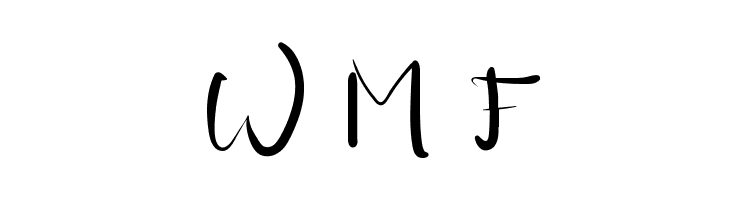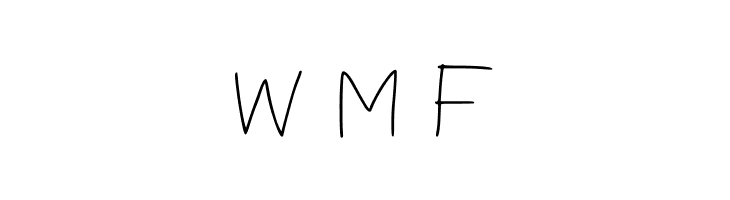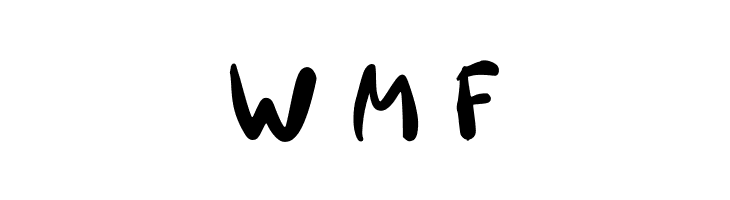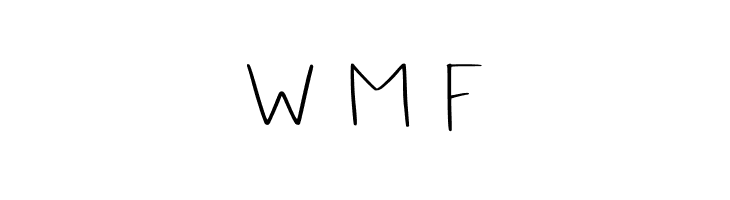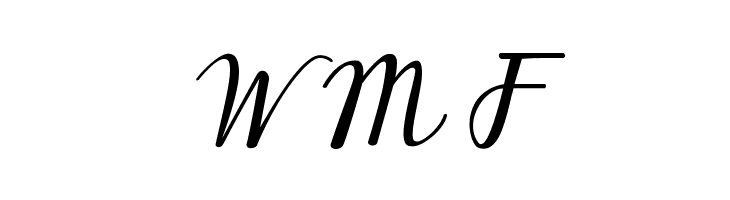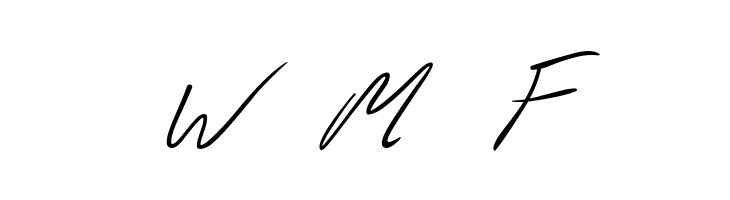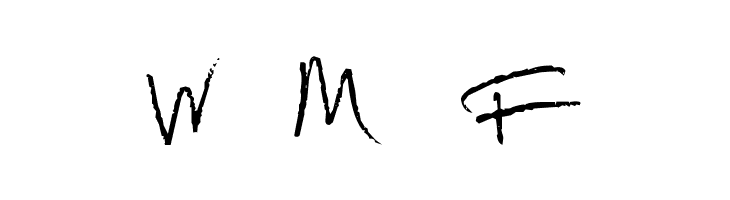
A hand-drawn, sketch-style font with textured outlines.
A playful, casual handwritten font with smooth, flowing lines.
A casual, handwritten font with fluid strokes and a personal touch.
A playful, cursive handwriting font with a smooth, flowing style.
A playful handwritten font with dynamic strokes and a lively style.
A playful and casual handwritten font with a whimsical charm.
A playful, casual handwritten font with smooth, rounded letterforms.
A casual, handwritten font with a natural and personal touch.
A casual, handwritten font with smooth, fluid strokes and a personal touch.
A bold, playful handwritten font with a casual, artistic style.
A playful, casual handwritten font with fluid strokes and a lively feel.
A playful, casual handwritten font with smooth, flowing lines and slightly irregular letterforms.
A graceful, flowing script font with elegant, continuous strokes.
A fluid, handwritten-style font with an organic and personal touch.
A fluid, elegant handwritten style with dynamic, connected characters.
A tall, narrow font with a geometric and modern style.
A whimsical, cursive font with elegant, flowing strokes and artistic flair.
An elegant, antique-style cursive font with intricate loops and swirls.
A playful, handwritten font with tall, narrow letters and bold strokes.
A bold, handwritten font with a playful and casual style.
A casual, handwritten font with an authentic, personal touch.
Casual handwritten font with playful, rounded forms.